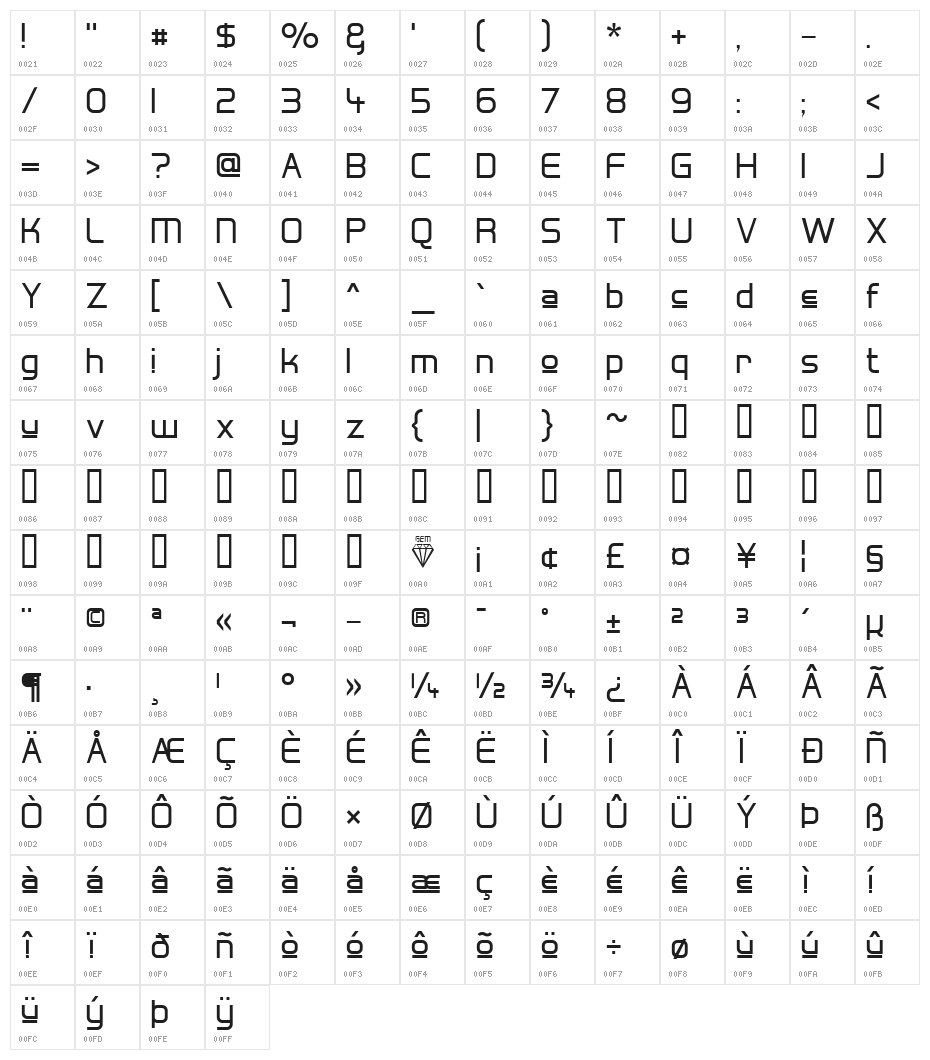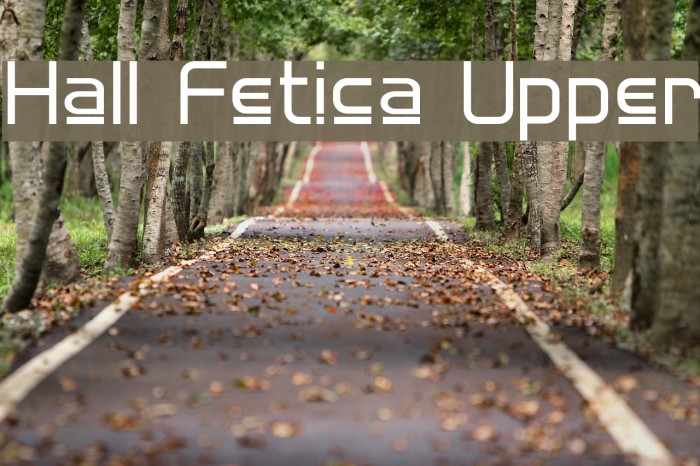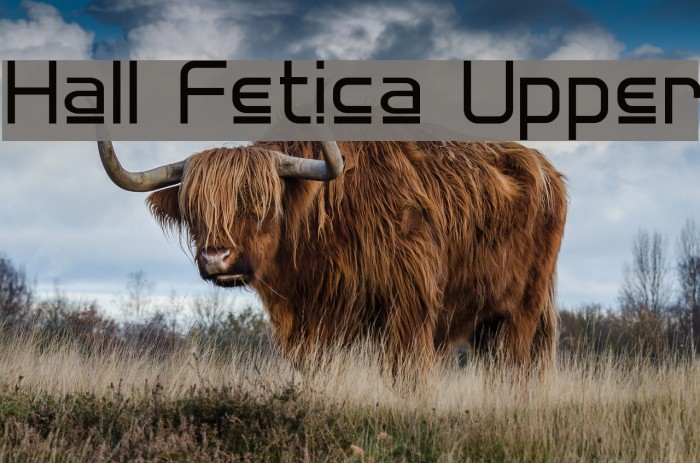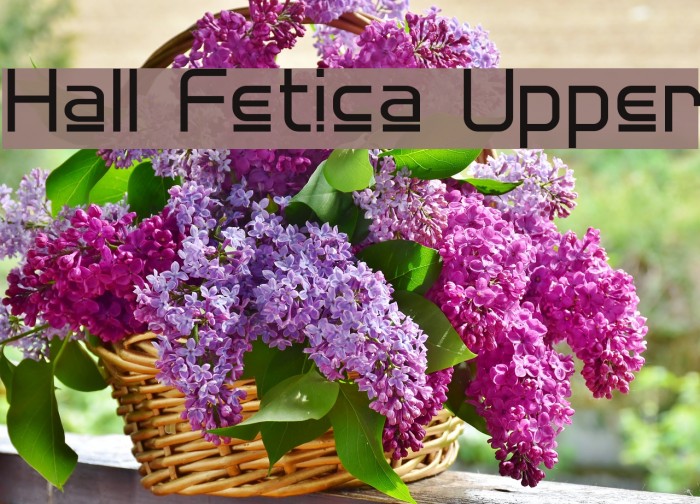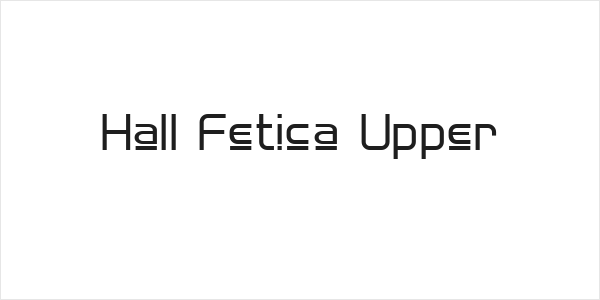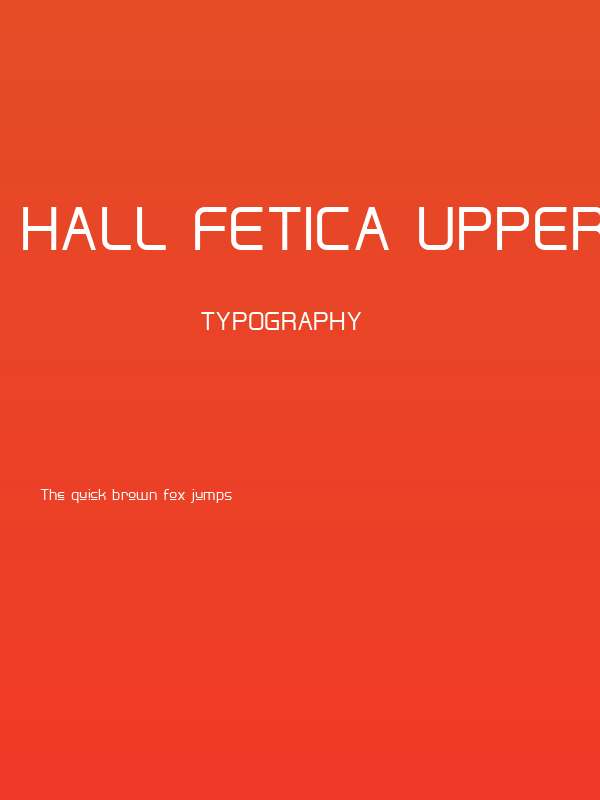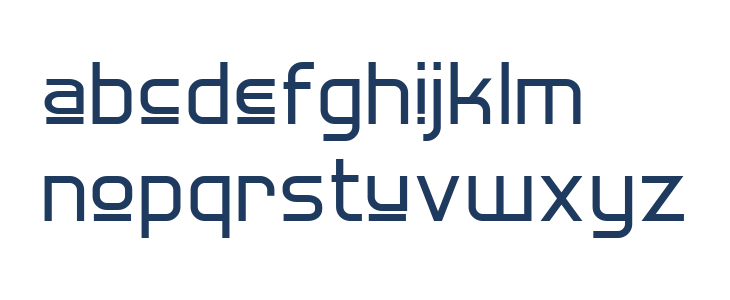
Hall Fetica Upper Font
Hall Fetica Upper Description
This font features a modern, geometric design with clean lines and a structured appearance. The characters are uniformly shaped, with a consistent stroke width that gives it a sleek and contemporary look. The uppercase letters are bold and commanding, while the lowercase letters maintain a balanced and harmonious style. The numerals are clear and easy to read, making them suitable for various applications. Special characters are well-integrated, maintaining the overall aesthetic of the font. Its design is both functional and stylish, making it versatile for different uses.
| Use Case | Headlines, Logos, Digital Interfaces |
| Proposed Projects | Ideal for branding, digital interfaces, modern print media, and advertising. |